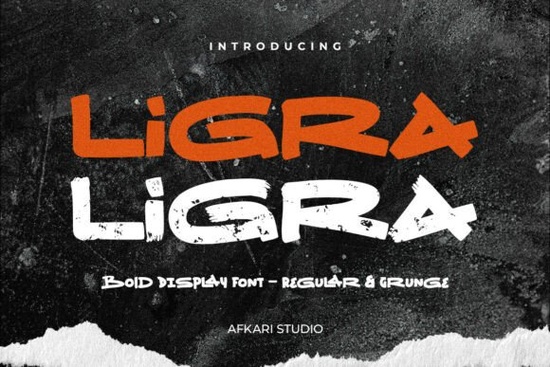
If you've been searching for a bold display typeface that works equally well for streetwear branding and clean modern logos, Ligra Font is worth a close look. It ships with two styles Regular and Grunge so you get both a polished, professional weight and a distressed version with authentic texture. That kind of versatility is hard to find in a single font package, especially one designed specifically for high-impact projects like posters, merchandise, and social media graphics.
What Makes Ligra Different From Other Bold Display Fonts?
Plenty of fonts claim to be bold and impactful, but Ligra was built with strong proportions and striking visual presence from the ground up. It's not just a heavy weight of a standard typeface the letterforms were designed to command attention at any size.
The Regular style gives you that clean, punchy look that works well for branding, packaging, and advertising. The Grunge style adds distressed textures that bring energy and a handcrafted feel, which is especially useful for vintage-inspired designs or rugged aesthetics. You can see similar bold approaches in typefaces like distressed display fonts with a bold personality, but Ligra bundles both looks into one download.
Where Does Ligra Font Work Best?
Ligra was made for projects where the text needs to do more than just communicate it needs to grab attention immediately. Here are some of the most popular uses designers and small business owners are putting it to work for:
- Logo design especially for brands that want a strong, confident identity
- Sports branding and team graphics
- Streetwear and apparel the grunge style is perfect for this
- Album covers and music promotions
- Gaming content and streaming overlays
- Poster and flyer design for events
- Social media posts that need to stand out in a fast-scrolling feed
- Print-on-demand products like t-shirts, mugs, and tote bags
If you work in print-on-demand, you know how important it is for a design to pop at thumbnail size. Ligra's bold structure holds up well whether it's printed large on a poster or scaled down for a product mockup.
Does Ligra Support Special Characters and Other Languages?
Yes. Ligra includes uppercase, lowercase, numbers, and punctuation, along with special alternates and ligatures for more creative flexibility. It also supports multilingual characters, including German characters like ä, ö, ü, Ä, Ö, Ü, and ß, as well as Spanish punctuation marks ¿ and ¡.
This makes it a practical choice if your audience includes international customers or if you're creating content in multiple languages.
How Does Ligra Compare to Similar Display Fonts?
That said, Ligra stands out because it gives you both a clean and a textured version in one package. You don't need to buy two separate fonts to get that range and for designers juggling multiple client projects, that saves both money and time.
Is Ligra Font a Good Fit for Your Projects?
If your work involves branding, merchandise, social media content, or any project where typographic impact matters, Ligra is a strong addition to your toolkit. It's particularly well-suited for designers who want bold, modern type with the option to switch to a grungy, textured look without changing fonts.